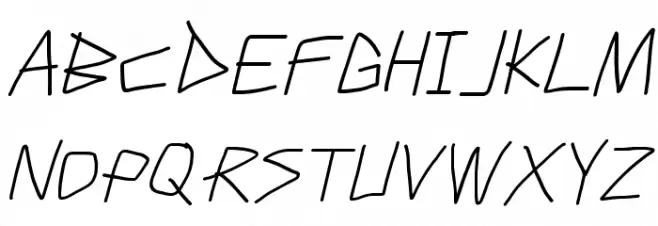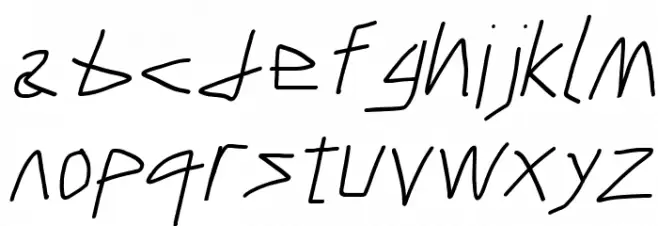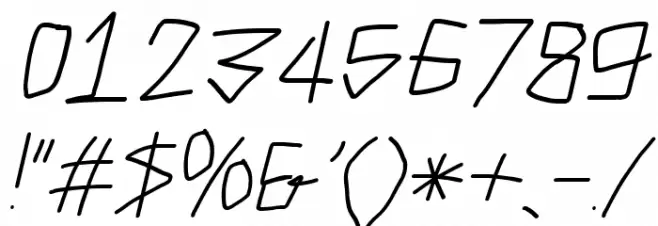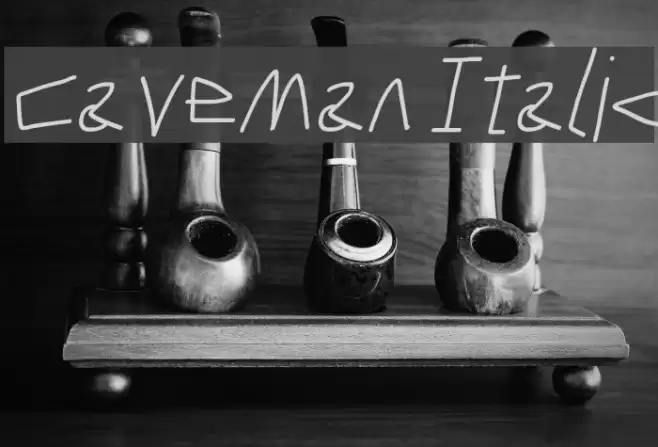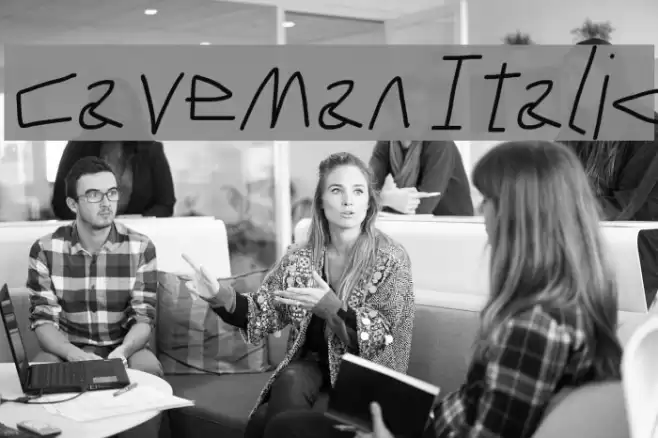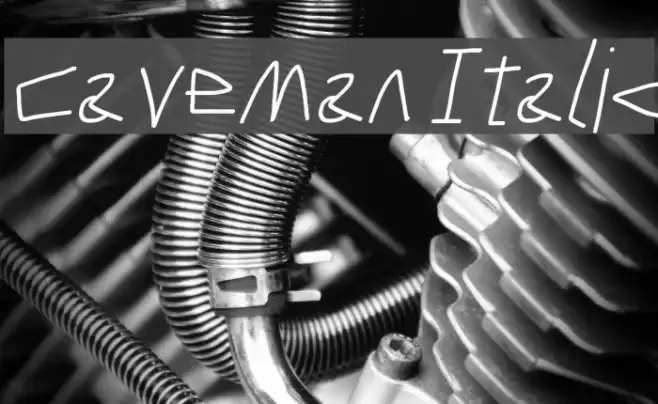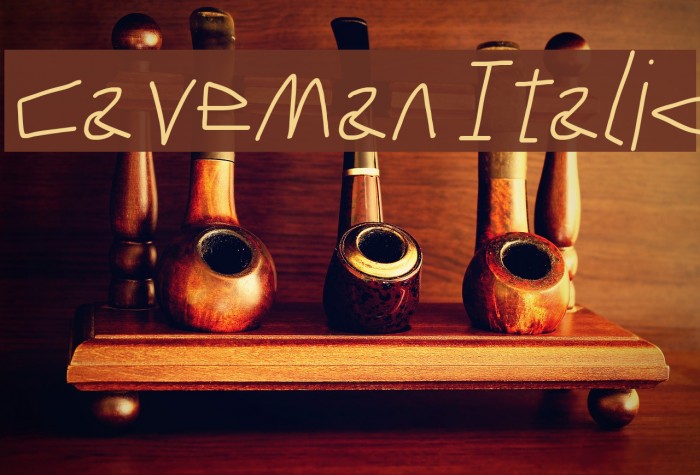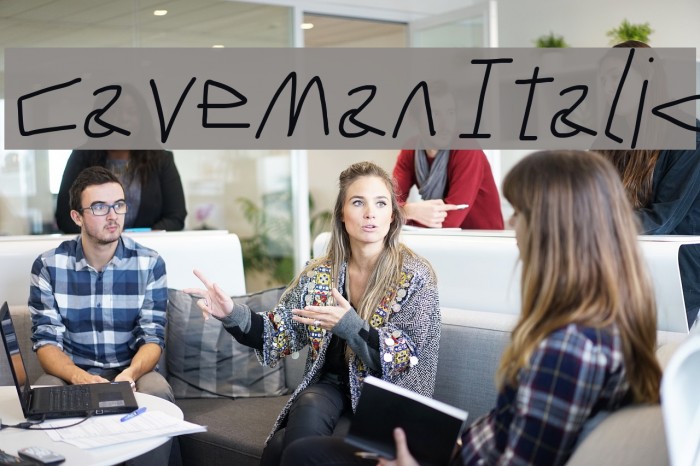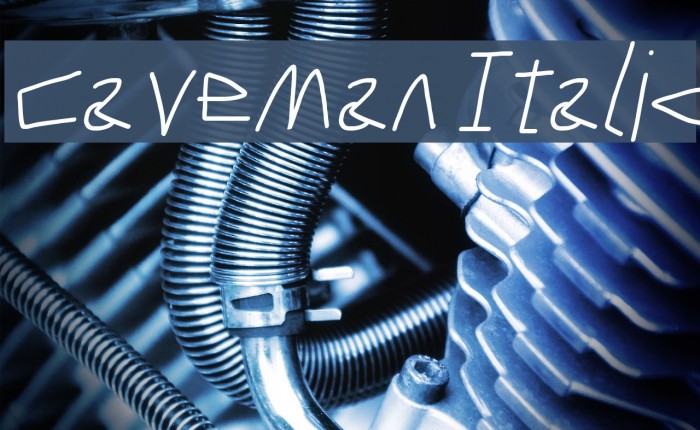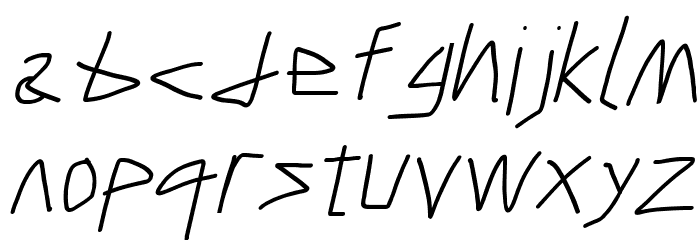
Caveman Italic
This font features a rugged, hand-drawn style that mimics the appearance of primitive writing. The characters are slanted, giving an italicized look, and each letter has a unique, uneven stroke that adds to its rustic charm. The uppercase and lowercase letters maintain a consistent style, with angular lines and a slightly irregular baseline, enhancing the font's organic feel. Numbers and special characters follow the same design principles, ensuring a cohesive appearance across all glyphs. This font's distinctive style makes it ideal for projects that require a touch of the unconventional or a nod to ancient aesthetics.
A rugged, hand-drawn italic font with primitive, angular strokes.
- Proposed Projects: Ideal for themed event posters, children's book illustrations, or branding for outdoor adventure products.
- Overall Style: Decorative